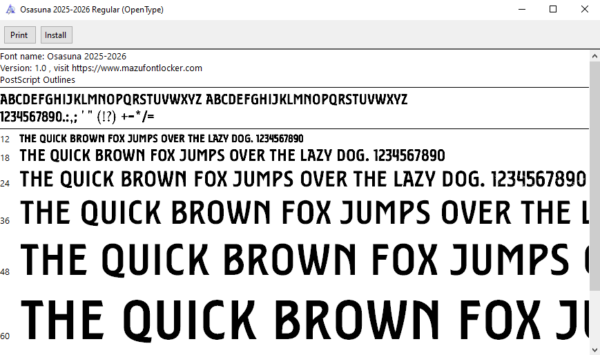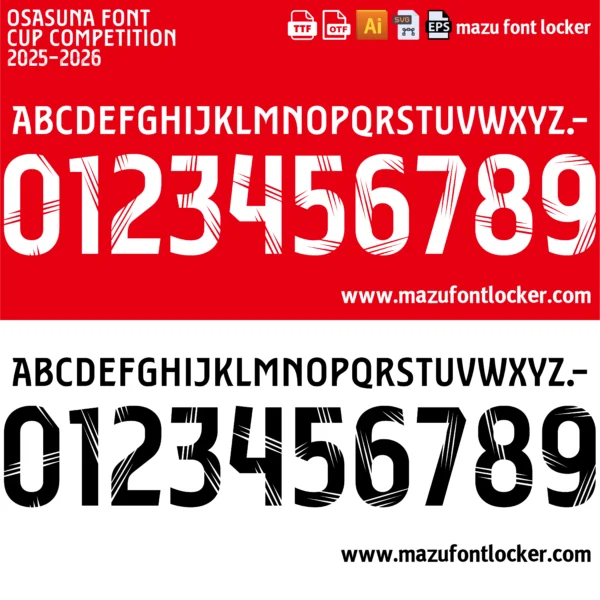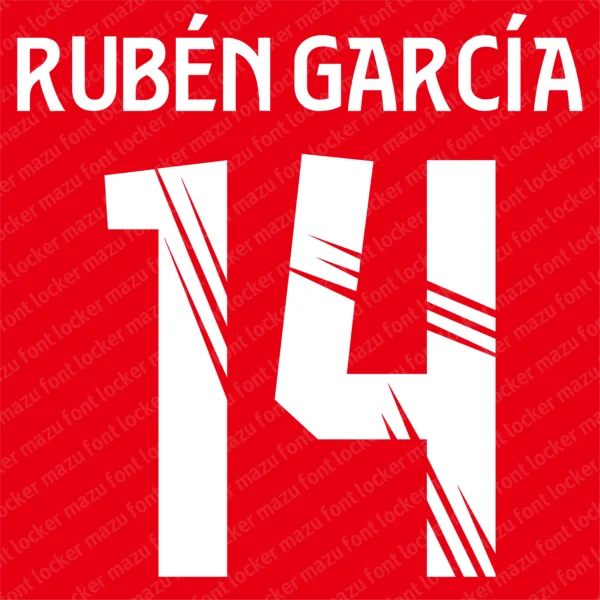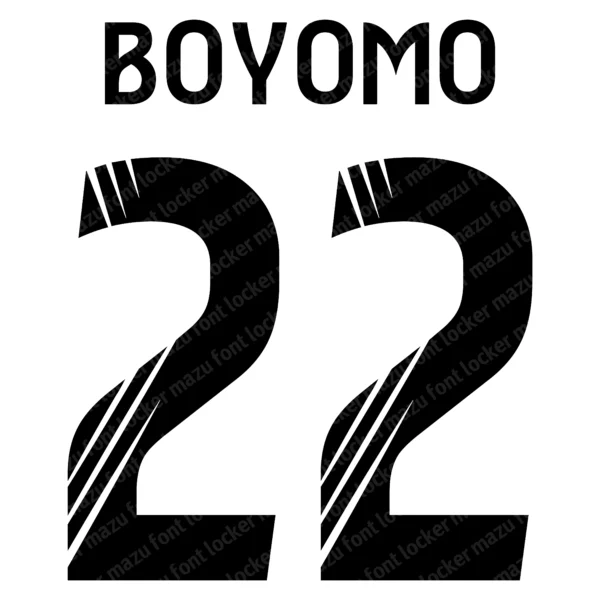
Osasuna 2025-2026 Font Vector – Epic Rojillos Masterpiece
Download the Osasuna 2025-2026 Font Vector (AI, EPS, SVG, PDF, OTF, TTF) and unleash the bold, thunderous, and fiery match typography that roared across the pitches during Osasuna’s fierce 2025-2026 campaign. This premium font captures the commanding, iconic, and ultra-intense lettering that embodies the unbreakable Rojillos spirit — delivering raw Navarrese passion, explosive fighting energy, relentless never-say-die attitude, tactical toughness, creative resilience, and legendary Osasuna grit. Perfect for premium jersey mockups, football designs, dynamic sports visuals, fan creations, stadium graphics, epic tributes, and high-impact branding that radiate pure red and white pride while celebrating the golden resurgence of CA Osasuna and their fearless conquest on the pitch.
Osasuna 2025-2026 Font Vector – Authentic Rojillos Typeface
The Osasuna 2025-2026 Font Vector is a premium typeface that accurately recreates the official match lettering worn by CA Osasuna during the 2025-2026 season. This high-quality vector font kit captures the bold, passionate, and gritty typography that represents the fighting spirit of this proud Navarrese club.
Designed for professional designers and passionate Osasuna fans, the Osasuna 2025-2026 Font Vector delivers perfect authenticity for creating realistic jersey mockups, fan merchandise, matchday posters, social media graphics, and El Sadar content. It pairs beautifully with the iconic red home kit featuring the famous Osasuna crest.
This font stands out because of its sharp vector precision and strong club identity. Every letter and number is crafted to match the exact style used on the players’ shirts during the 2025-2026 campaign. Whether you are making realistic kit templates or exciting Rojillos content, the Osasuna 2025-2026 Font Vector gives your designs that authentic Osasuna look.
The letterforms in the Osasuna 2025-2026 Font Vector are tall, bold, and highly readable. The strokes have a strong, clean weight with excellent edge definition that looks powerful on the back of jerseys while maintaining modern Spanish passion and clarity.
• Full uppercase A–Z and numbers 0–9 in authentic Osasuna 2025-2026 style
• Special Osasuna crest glyph for accurate shirt number detailing
• Create highly realistic Osasuna 2025-2026 home and away jersey mockups with accurate lettering
• Produce custom CA Osasuna merchandise with the 2025-2026 aesthetic
The Osasuna 2025-2026 Font Vector is an independently designed typeface package. It is carefully crafted to replicate the official shirt lettering style of the 2025-2026 season. This font kit is perfect for creative projects, fan edits, nostalgic jersey designs, and custom football graphics.